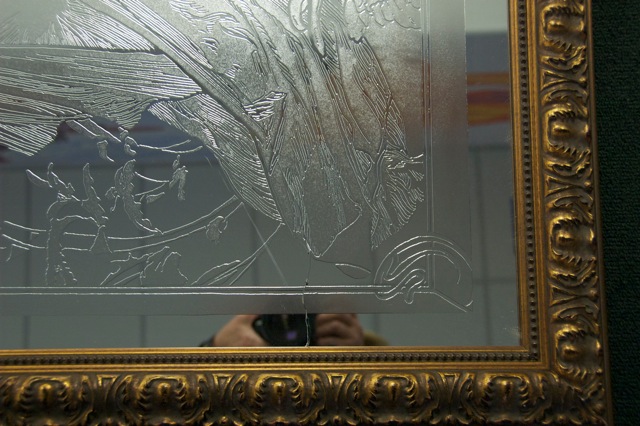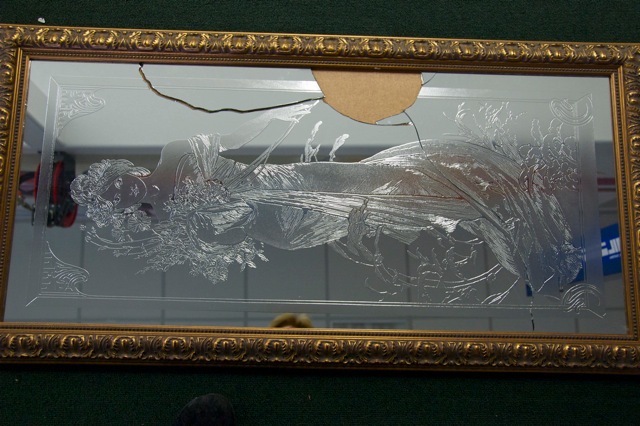
I had a client send me these photos. Anyone know how this was done. Maybe acid embossed or briallant carved?
I am almost 99.99999% certain that the mirror you have was done by my friend Roger Page.
Bingo!
Roger is going to look in his old art files. I called just in time because as he is retired, he is clearing out some old files as he has taken up painting now in his retiring years.
I always wondered how he created the art master for these mirrors. I thought maybe they were drawn out in pen and ink on press board, then photographed into a negative film to use in burning a silk screen. (since these were done way before home computers were available). But no, it seems Roger and I employed the same method back then of hand cutting a rubylith (lacquer film on clear acetate) to burn the screen. (Totally "old school" by today's standard)
Look at the detail and clean lines and you will see that Roger was very keen with a blade. I might add that Dean Hensley was also very good at hand cutting.
I always hate to see these guys retire, but thankfully new guys pick up the ball and carry it even farther.
I'm still curious for more info Pat. Making the screen with rubylith i understand, but what next?
I'm assuming you use the screen to print on a bitumen resist, and then do an acid etch. right?
But there seems to be two levels of depth...the main area as one level, and the line work seems to be deeper. Is that what I'm seeing? So would you have two screens? How's that going to work?
Beautiful piece of work. what a pity it broke.
It reminds me a little of another method that a friend of mine was using. He would sand-blast a design into the front surface of a mirror, then fill it with clear resin. This made the carved areas less matt in appearance. The finish he got was more like this type of acid etch.
BruceJackson wrote: It reminds me a little of another method that a friend of mine was using. He would sand-blast a design into the front surface of a mirror, then fill it with clear resin. This made the carved areas less matt in appearance. The finish he got was more like this type of acid etch.
What an interesting idea Bruce, was your friend surface blasting to do that or was it with some depth please?
Anthony, he was deep carving. Also, he didn't fill it with resin, just enough to give it a good thick coating. It still felt dimensional. If you just do the surface it's not as dramatic.
With plenty of depth to the sand-blasting, it looked more like a casting.
Burning the screen is when you expose it to an arc lamp. The rubylith, being red, blocks out the UV light so that the image is set on the screen.
All of the remaining background glass was protected by resist. Then the glass was silvered. Any variations that you believe that see are the result of the overhead lighting in the shop ceiling and angle of photography.
So there it is. Simply as stated. Print resist. Top with acid. Remove resist. Proceed with silvering.
A very elegant look.